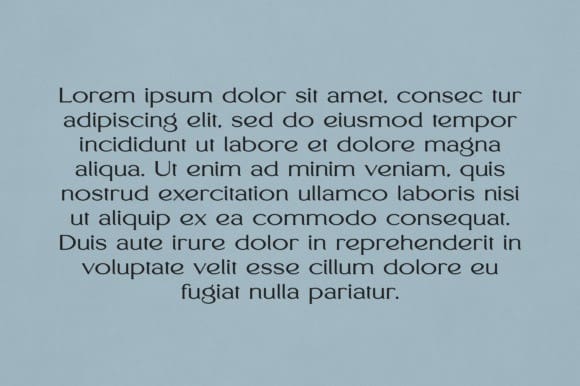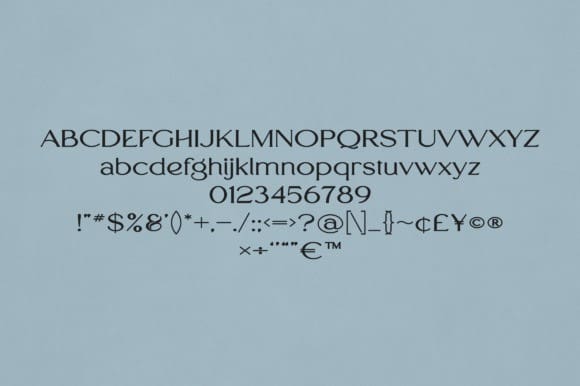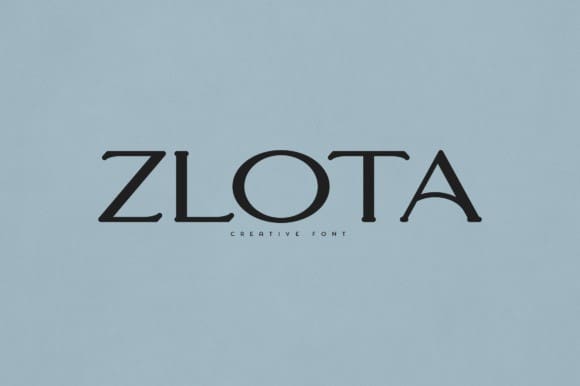
Zlota Font
Zlota Font is an elegant and versatile font that will make your typography truly unique! It will enchant every logo, branding, headline, or plain text!